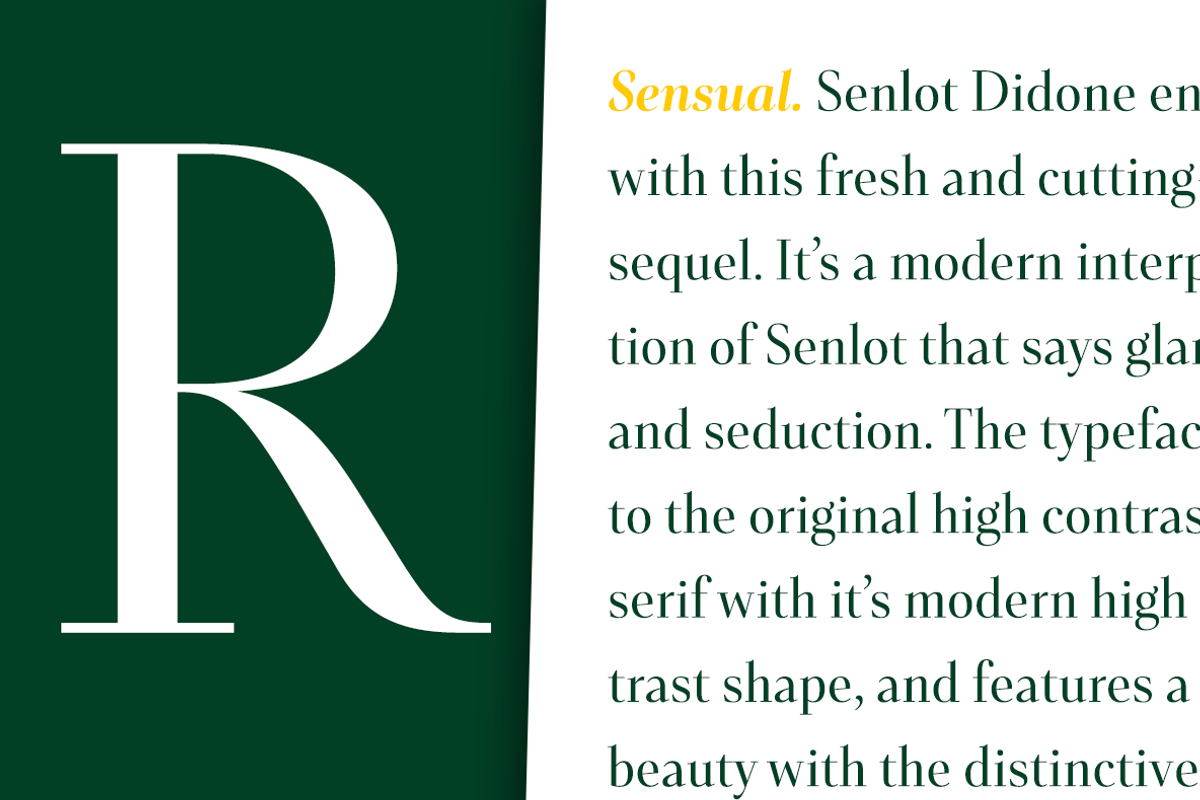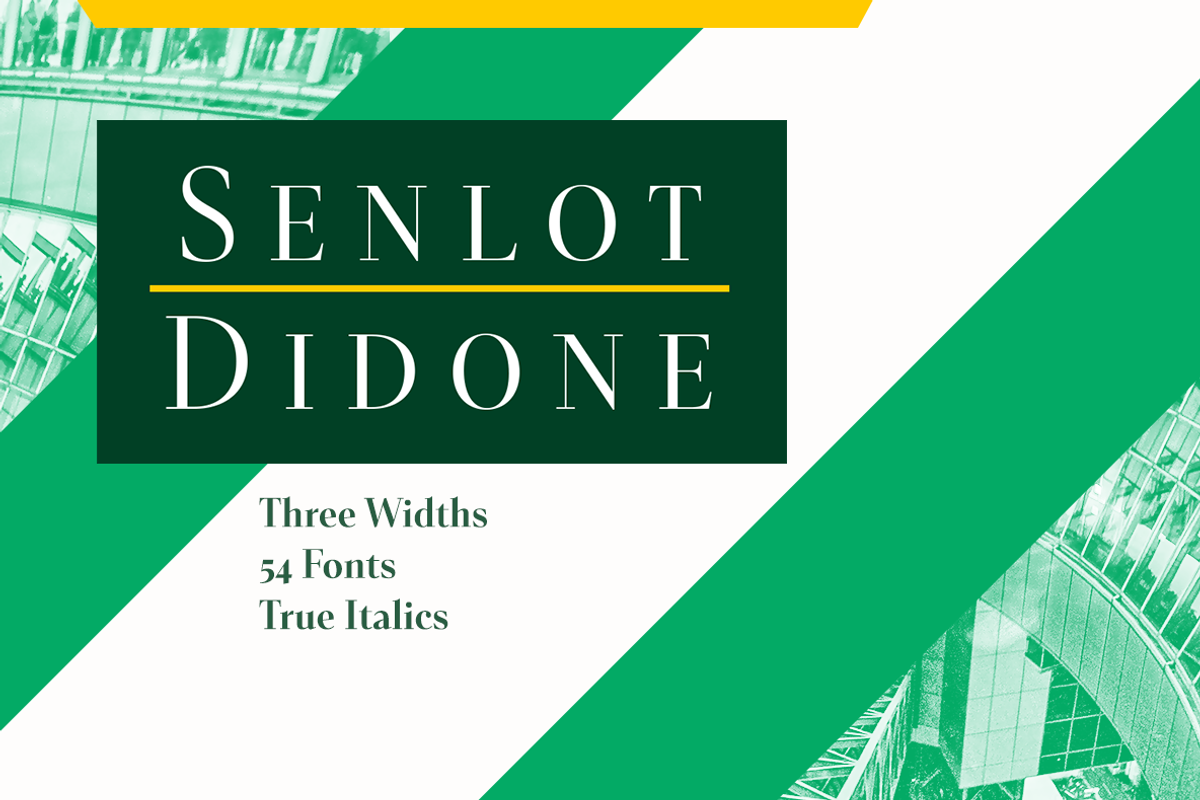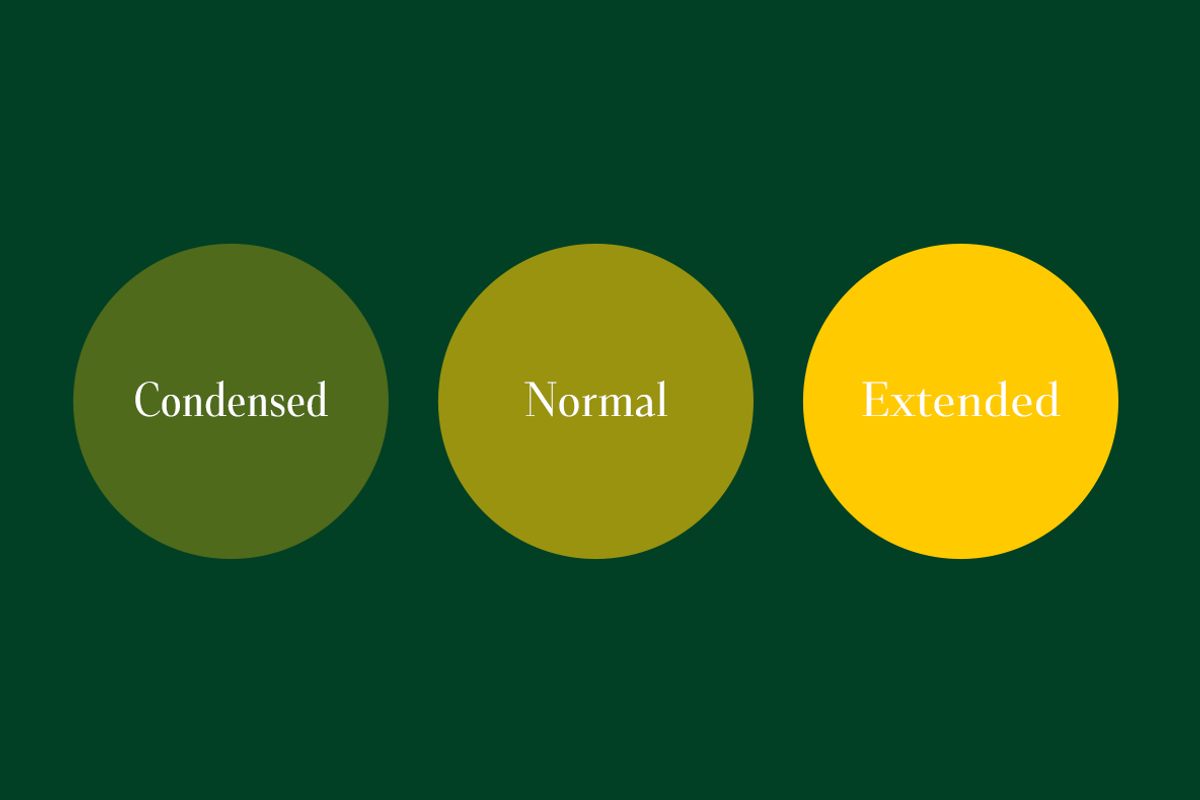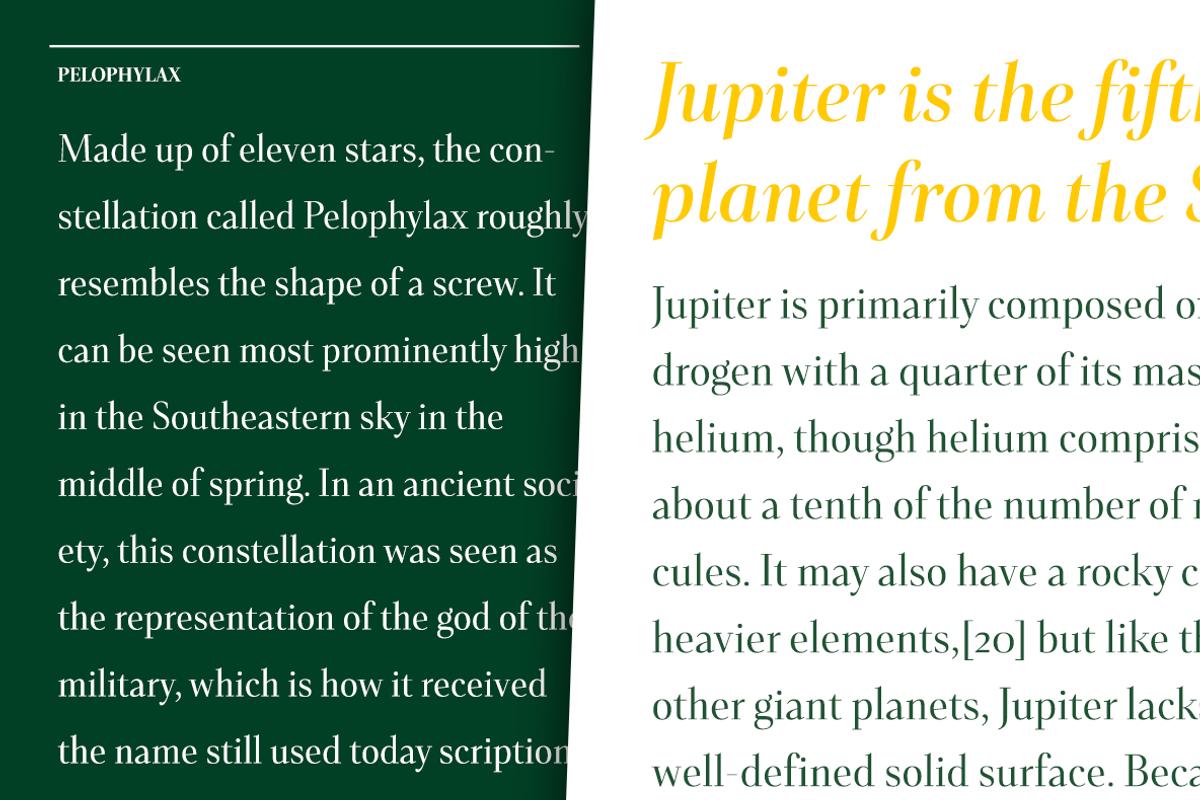
Senlot Didone
Senlot Didone enchants with this fresh and cutting-edge sequel. It’s a modern interpretation of Senlot that says glamor and seduction. The typeface adds to the original high contrast sans serif with it’s modern high contrast shape, and features a new beauty with the distinctive sinuosity of contrasting forms.
Senlot Didone is the sleek, serifed, high contrast follow-up to Senlot, and it's low contrast sequel, Senlot Sans. A serif typeface suitable for text and display work joined in 2019.
Senlot Didone includes a wide range of OpenType features, including titling capitals, superscripts and subscripts, and oldstyle figures. Senlot Didone is composed of 3 widths: Condensed, Normal, and Extended, with 9 weights and their italics for a total of 54 fonts with more than 800 glyphs. Senlot Didone is a great display typeface for logos, branding, packaging, and advertising. With its broad palate of options, the font covers over 72 Latin-based languages. Dress your text in any of nine separate styles from Thin to Bold.
With Senlot Didone, there's no need to compromise on another font with fewer features. Simple, elegant, and versatile, Senlot Didone now makes perfect more possible. Take the show by storm with this high contrast serif. The seductive figure of Senlot Didone is here to entice your viewer.